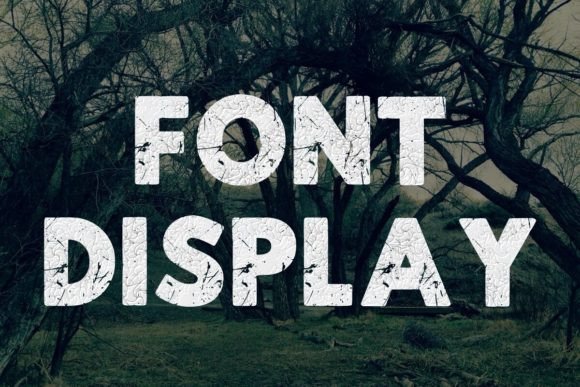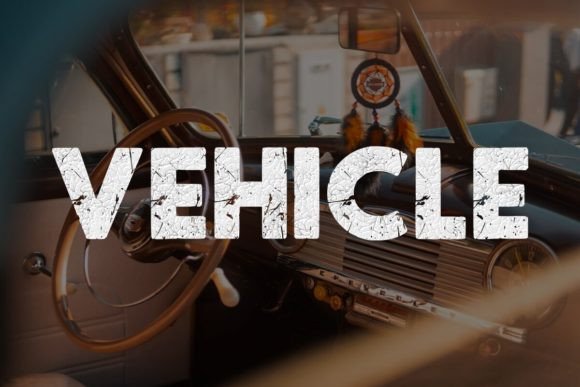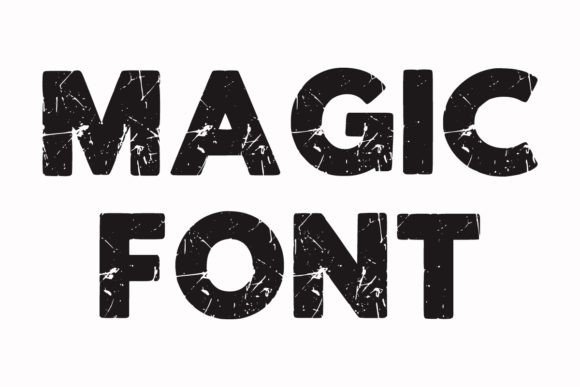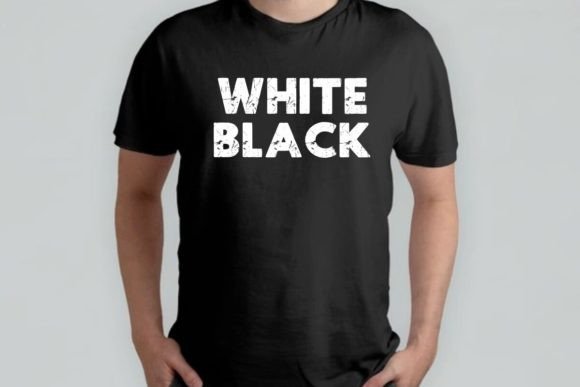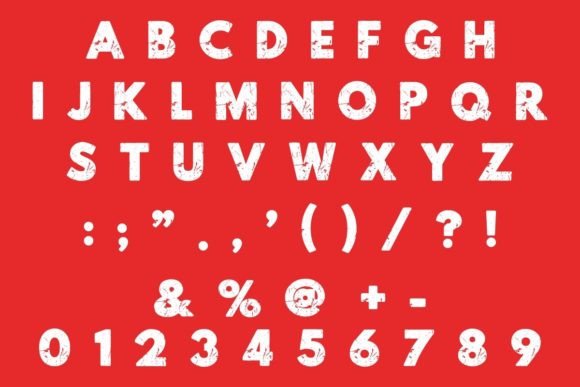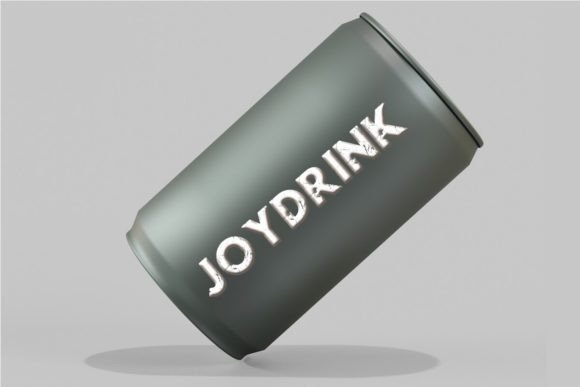
Bloody Rought Font: The Ultimate Vintage Display Font for Creative Projects
Are you a designer or crafter looking for a unique and eye-catching font to elevate your creative projects? Look no further than Bloody Rought, a vintage, retro, and cool grunge bold display font. This versatile font is perfect for a wide range of applications, from blog posts and logos to branding, ads, invitations, greeting cards, planners, photo albums, decorations, and much more.
What Makes Bloody Rought Font So Special?
Bloody Rought Font is a one-of-a-kind display font that exudes a sense of nostalgia and edginess. Its bold and grungy texture gives it a distinctive look that’s sure to grab attention. Whether you’re creating a logo, branding materials, or promotional products, Bloody Rought Font is the perfect choice for adding a touch of vintage flair to your designs.
Key Features of Bloody Rought Font
- Vintage and Retro Style: Bloody Rought Font boasts a classic, vintage look that’s perfect for creating unique and eye-catching designs.
- Bold and Grungy Texture: The font’s bold and grungy texture adds a touch of edginess to any design.
- Highly Versatile: Bloody Rought Font can be used for a wide range of projects, from digital designs to print materials.
- Easily Readable: Despite its bold and grungy texture, Bloody Rought Font remains easily readable, making it perfect for use in various contexts.
Bloody Rought Font is an ideal choice for designers and crafters who want to add a touch of personality to their creations. Whether you’re designing a logo, creating social media graphics, or crafting invitations and greeting cards, this font is sure to make your designs stand out.
Use Cases for Bloody Rought Font
- Blog Posts: Use Bloody Rought Font to create eye-catching headings and titles for your blog posts.
- Logos and Branding: Create a unique and memorable logo for your brand using Bloody Rought Font.
- Ads and Promotions: Use Bloody Rought Font to create attention-grabbing ads and promotional materials.
- Invitations and Greeting Cards: Add a touch of vintage flair to your invitations and greeting cards with Bloody Rought Font.
- Planners and Photo Albums: Use Bloody Rought Font to create visually appealing planners and photo albums.
- Decorations: Create unique and eye-catching decorations using Bloody Rought Font.
Tips for Using Bloody Rought Font
To get the most out of Bloody Rought Font, here are a few tips to keep in mind:
- Use it Sparingly: Bloody Rought Font is a bold and attention-grabbing font, so use it sparingly to avoid overwhelming your designs.
- Experiment with Colors: Try pairing Bloody Rought Font with different colors to create unique and eye-catching designs.
- Mix and Match Fonts: Combine Bloody Rought Font with other fonts to create visually appealing and interesting designs.
Bloody Rought Font is a versatile and eye-catching display font that’s perfect for designers and crafters looking to add a touch of vintage flair to their creative projects. With its bold and grungy texture, highly versatile design, and easily readable text, Bloody Rought Font is an ideal choice for a wide range of applications. So why wait? Download Bloody Rought Font today and start creating unique and memorable designs that stand out from the crowd!